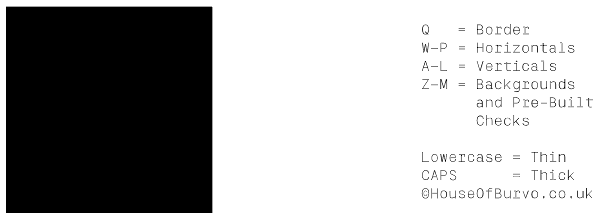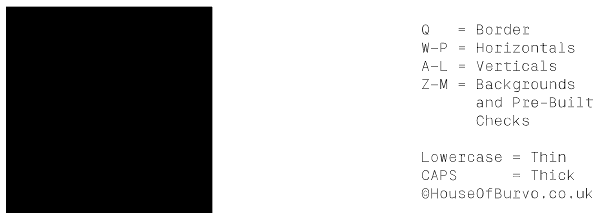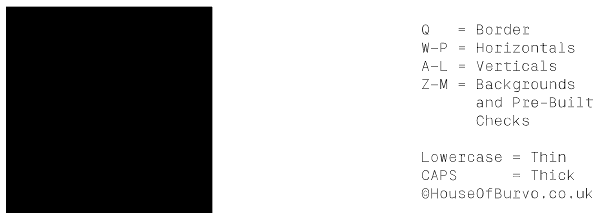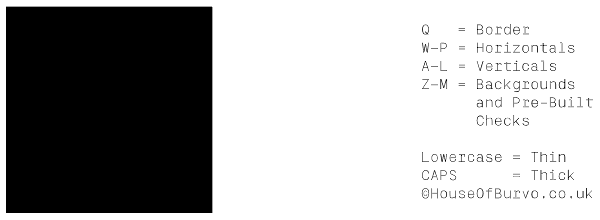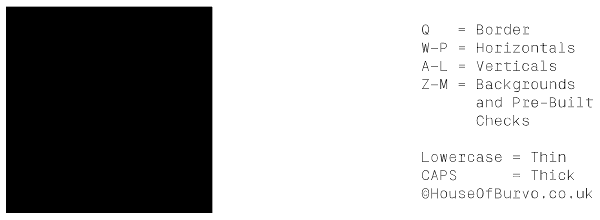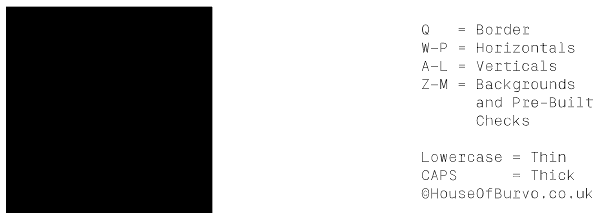
Checks
Inspired by my personal collection of checked heavy work shirts, Checks is a font for generating unique and original checked patterns quickly and easily. The font comes in six 'weights', that's six font files for creating everything from light check...